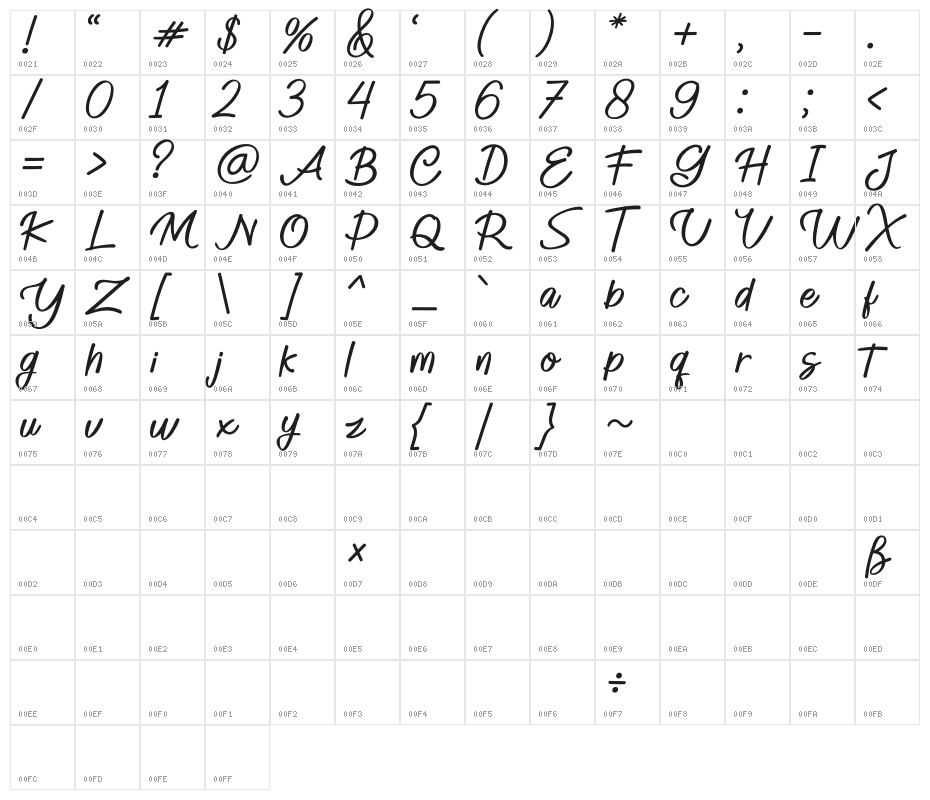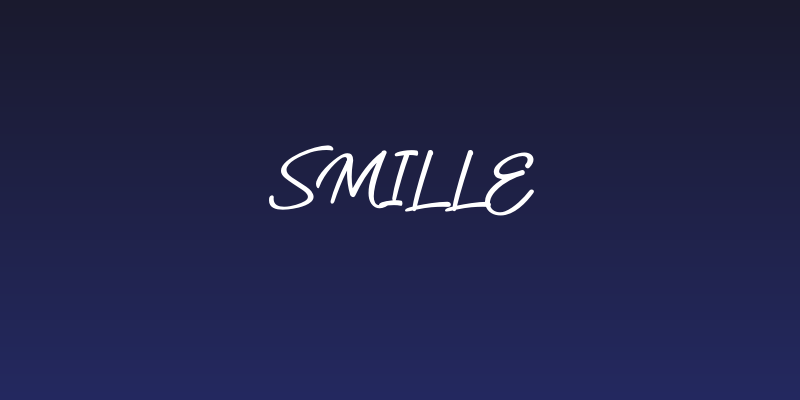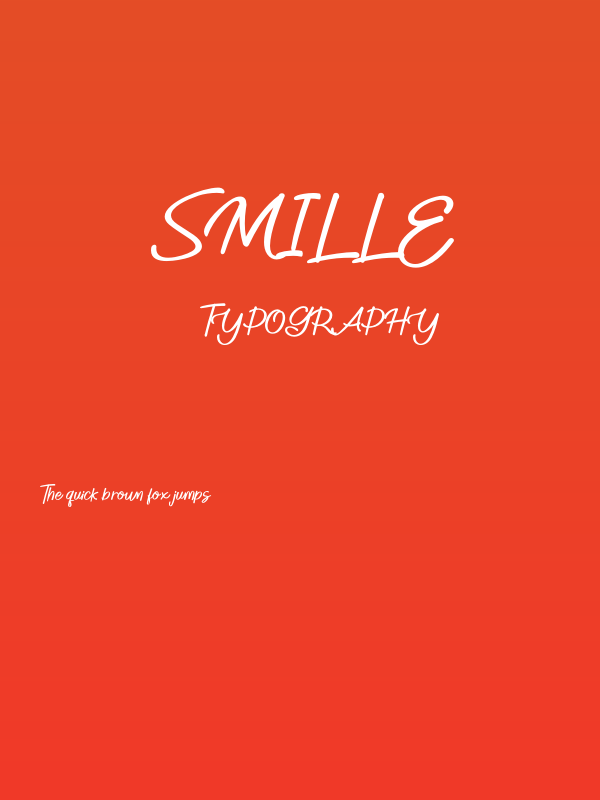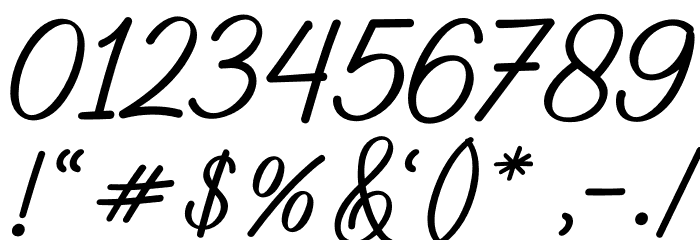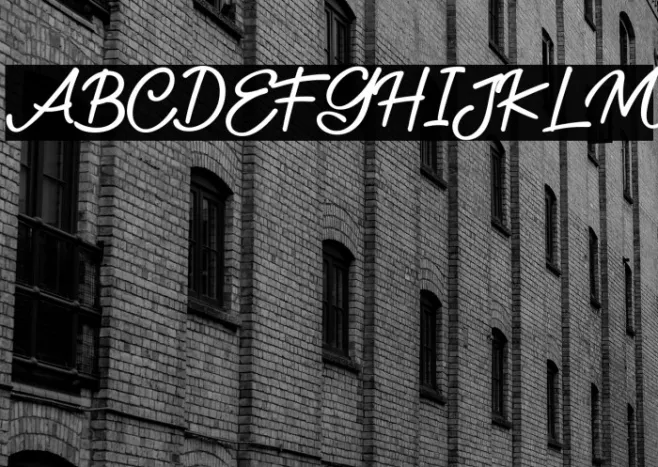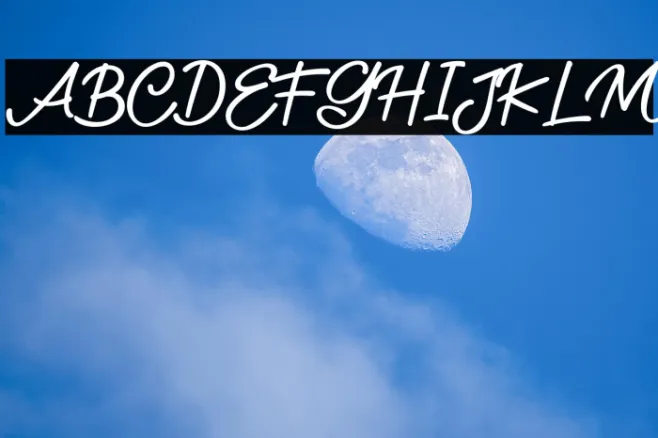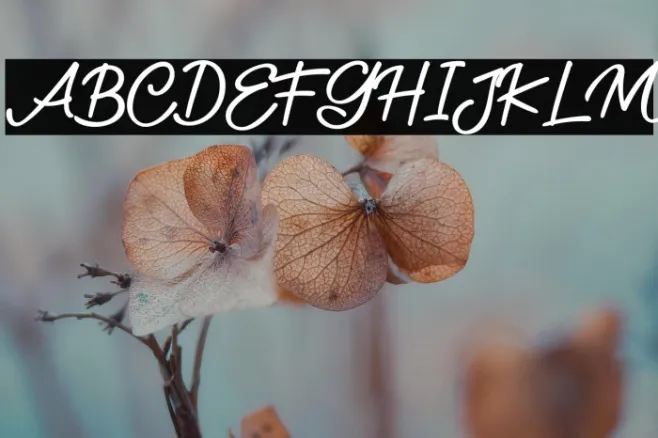
Smille Font
Smille Description
This font features a lively and flowing script style, characterized by its smooth, cursive strokes that mimic natural handwriting. The uppercase letters are elegantly looped and connected, while the lowercase letters maintain a consistent rhythm and fluidity. The numerals are distinct yet harmonious with the overall script style, and the special characters blend seamlessly, enhancing the font's versatility. The font's playful and dynamic appearance makes it suitable for creative and informal applications.
| Proposed Projects | Ideal for wedding invitations, greeting cards, personal branding, and creative projects that require a personal touch. |